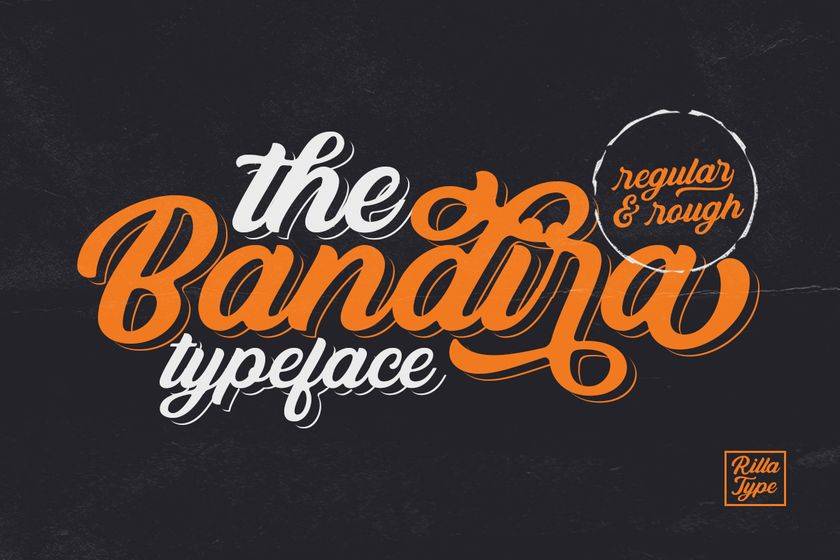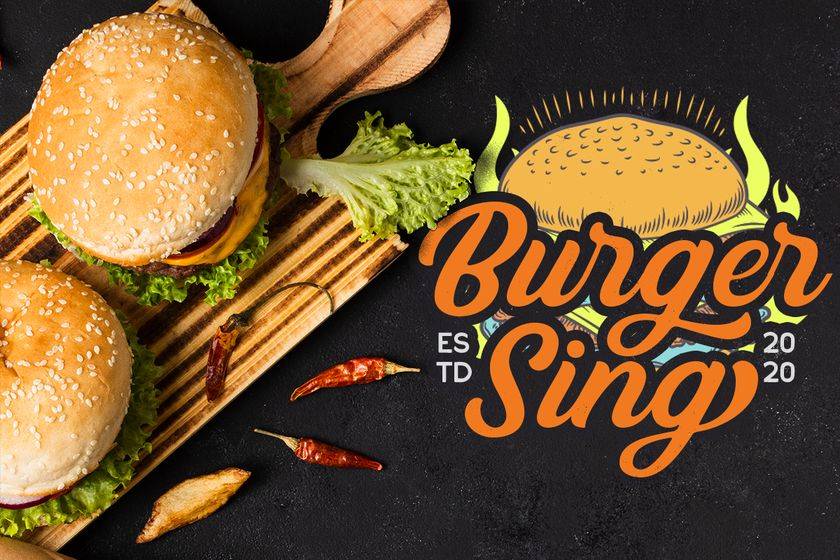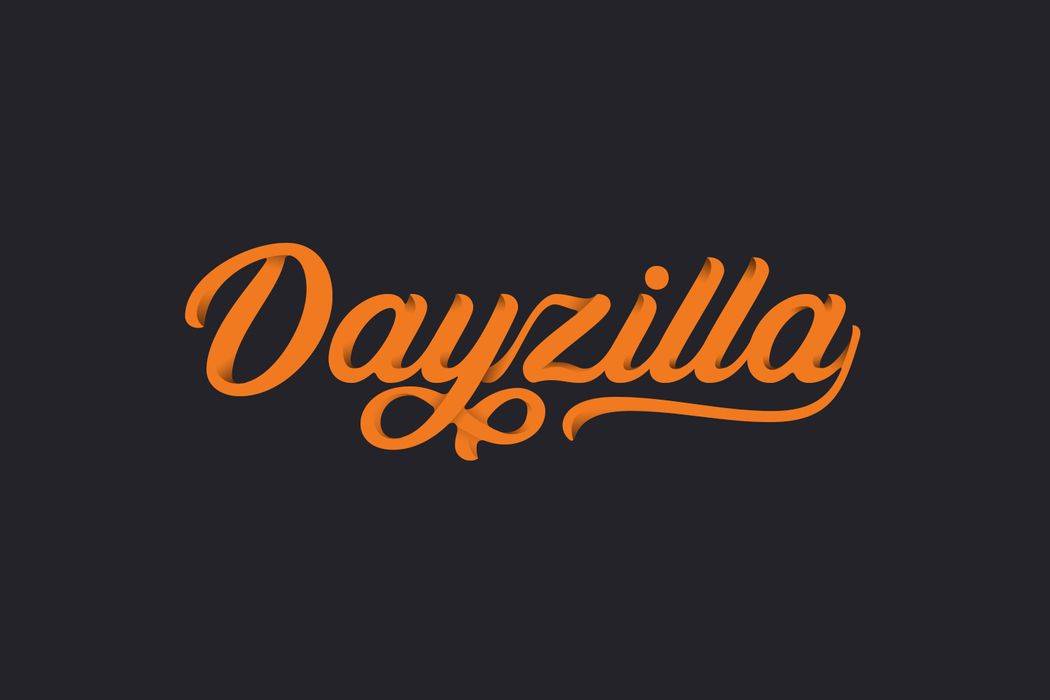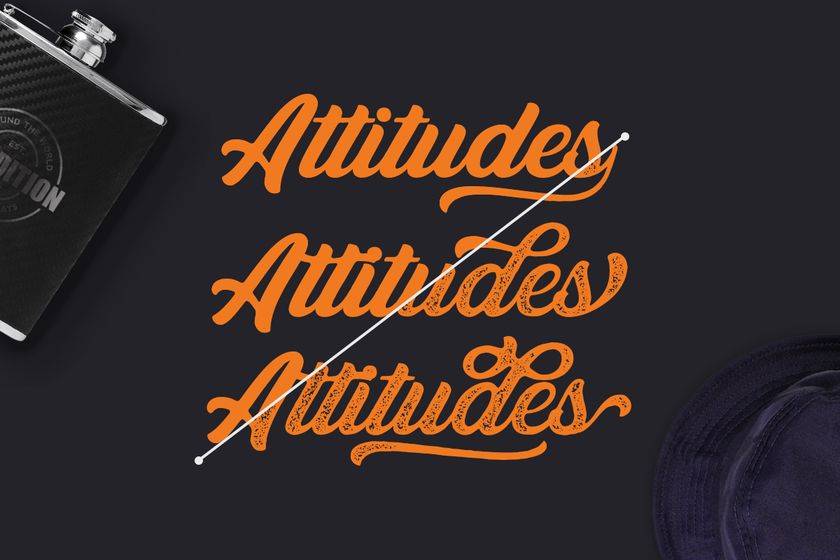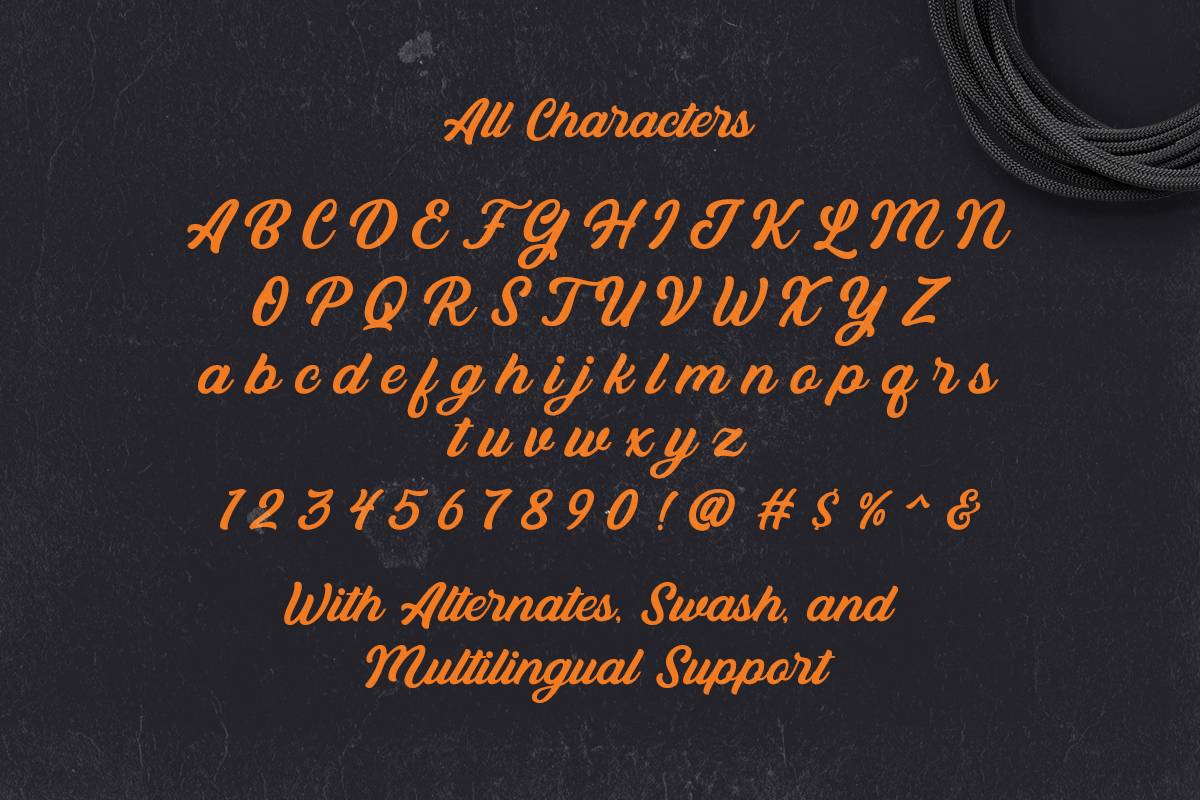
Bandira Script is a smooth and elegant script font featuring medium weight and a natural, flowing style with moderate contrast between strokes. Its rounded, connected letterforms and classic cursive feel make it ideal for adding a friendly yet refined touch to branding, invitations, packaging, and headlines where a personal, handwritten look is desired. This font blends warmth and sophistication, making it a versatile choice for creative and stylish design projects.
Bandira Font
About Bandira Font
| Font family | Bandira Font |
| Designer | Gustian Agung Asprilla |